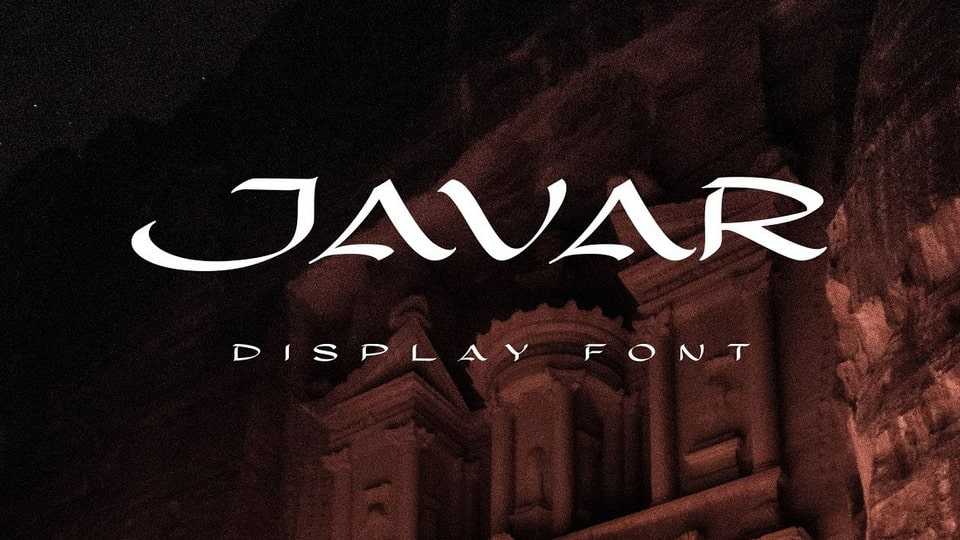
Download Javar font, an all-caps display typeface. Javar font is designed in a colossal Middle Eastern style, with dynamic strokes using a flat pen which produces a magnificent and authoritative letterform.